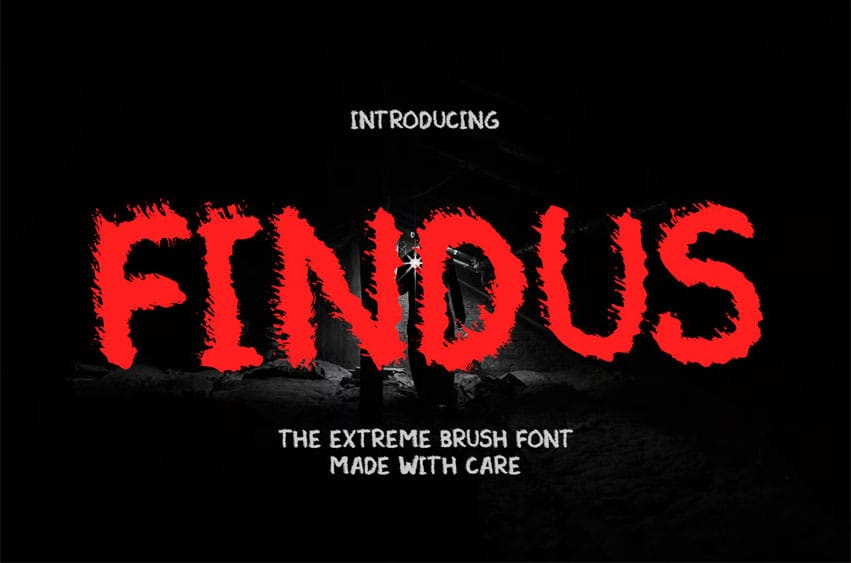
Findus Font is an extreme brush font designed with aggressive strokes and bold textured brush marks. Inspired by high-energy hand-painted lettering, this font captures raw movement and powerful expression.
Its sharp edges and intense brush flow create a striking visual presence while maintaining strong readability.